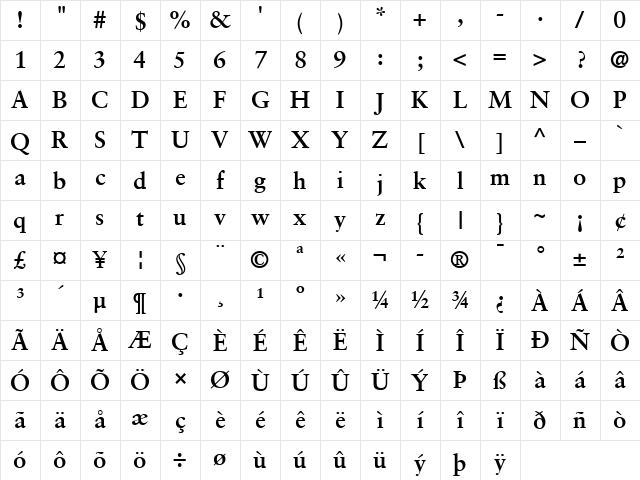
Sabon LT is a composed and adaptable typeface that performs quietly and consistently across a wide range of design contexts. Its bold stroke weight gives it real presence on the page.